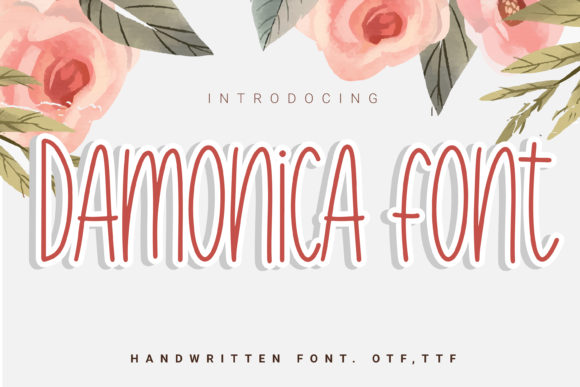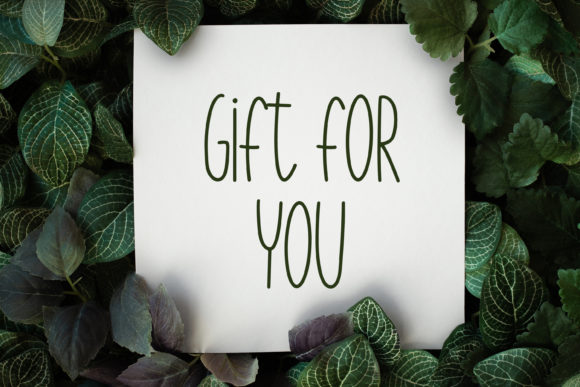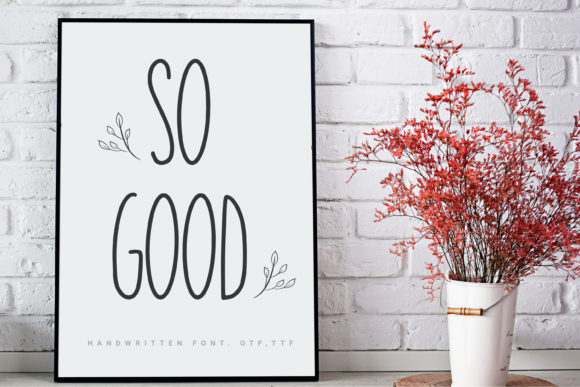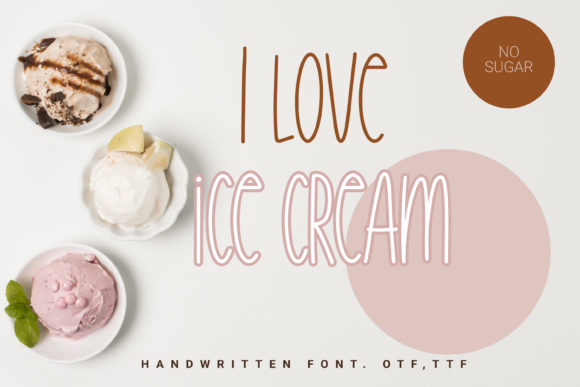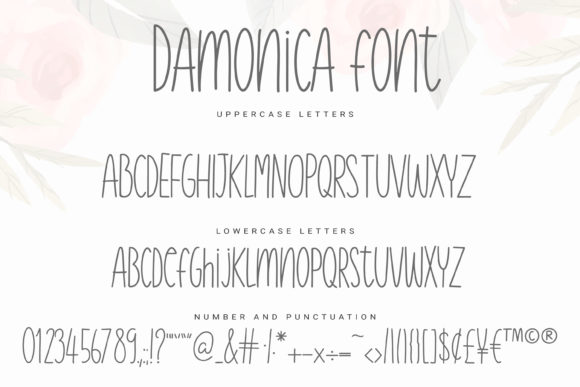
Damonica Font
About Damonica Font
Damonica is a cute and quirky handwritten font. Incredibly versatile due to its friendly style, Damonica is the perfect fit for a wide variety of design projects that you envision to create!